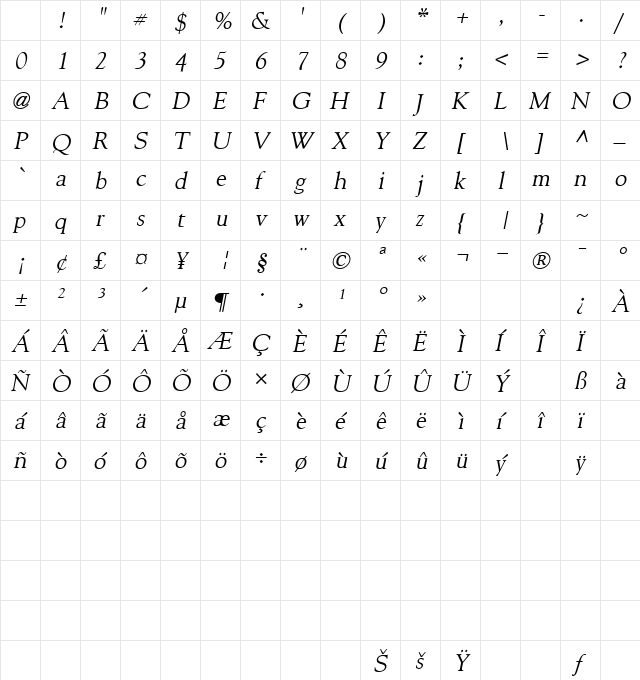
Enclave is a composed and adaptable typeface that performs quietly and consistently across a wide range of design contexts. The slanted form adds forward momentum and visual energy.